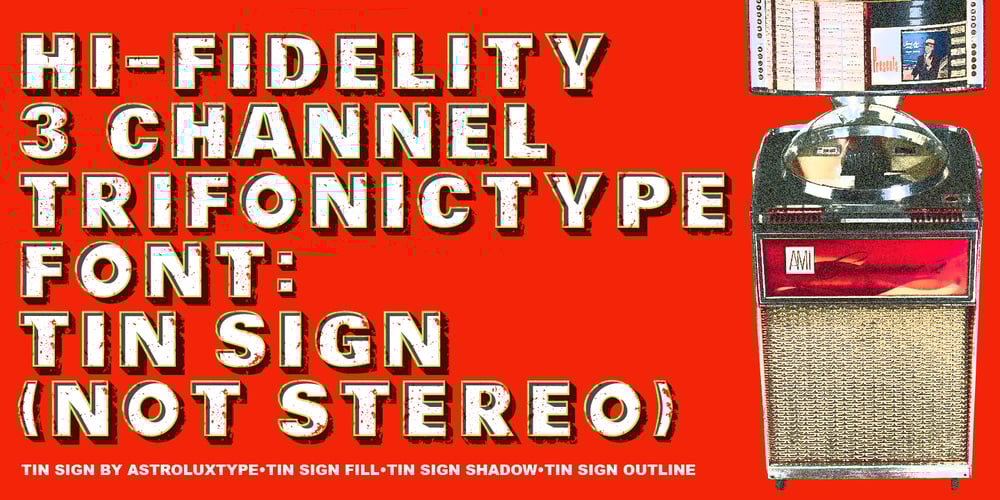
Tin Sign Font Family was designed by Glenn Parsons and published by astroluxtype. Tin Sign contains 3 styles and family package options. A new “Trifonictype” font (Barn Owl the 1st) from astroluxtype. It’s three fonts in one. Tin Sign can be used to create special typographic “effects” in your image manipulation program and other apps as you change opacity, layering etc. to get a wide range of different looks to the three components to this font. Bold. Distressed. Vintage. Dimensional. This is a display/headline only font recommended to be used larger than 36pt. It is letter spaced open, but by using letterspacing in your app you can customize the look to your desired spacing. Tin Sign Fill, Tin Sign Shadow and Tin Sign Outline can be used together or separate to create a new look each time you use them. Shadow can be in the back or front which shows the interior shadow on the glyph. It is a minimal/basic font set. It is an all uppercase font with a small mix of lowercase glyphs in the lowercase positions. These bring an additional element/look to your design should you choose to include them. How Tin Sign works, type your headline, copy it and paste it in front or back. Choose a different component of the font, do it a third time with again a different component of the font pasted in back (or front) choose a new color at each step and see the results. In your application play with transparency and other effects to get the font artwork that you desire. Tin Sign brings multiple possibilities to your layouts and design with its modular components that lend themselves to manipulation and exploration.